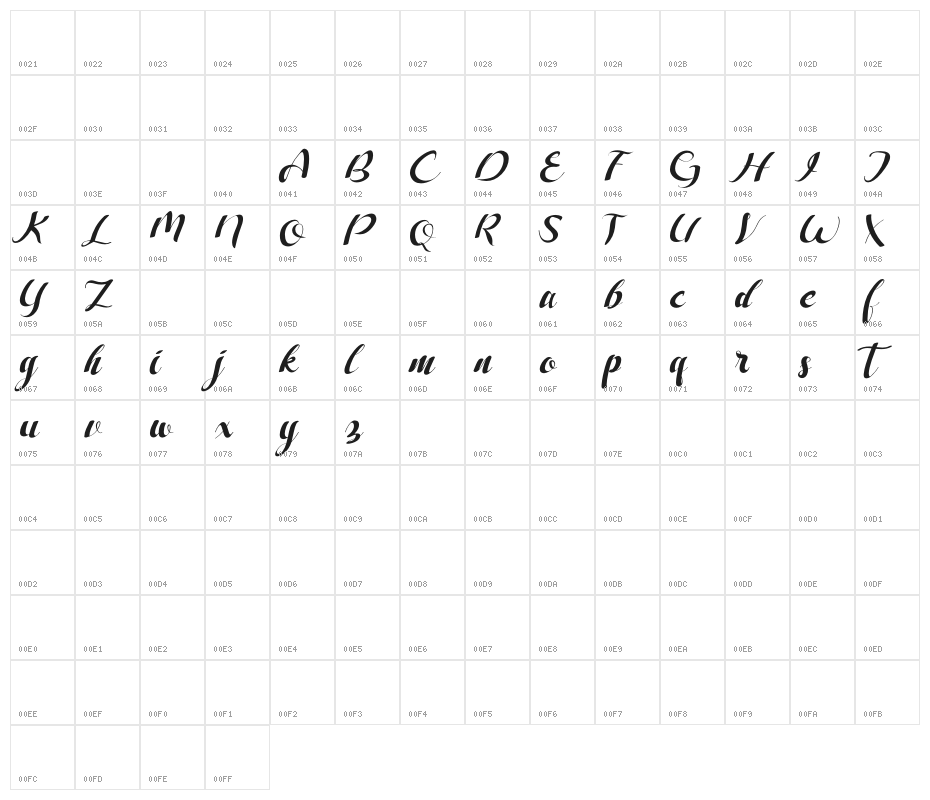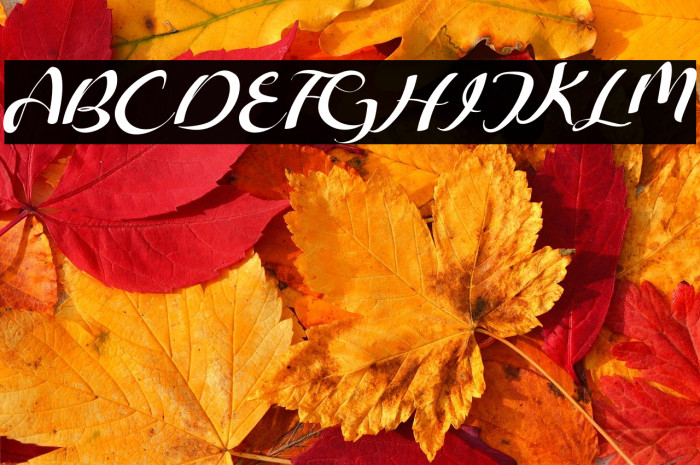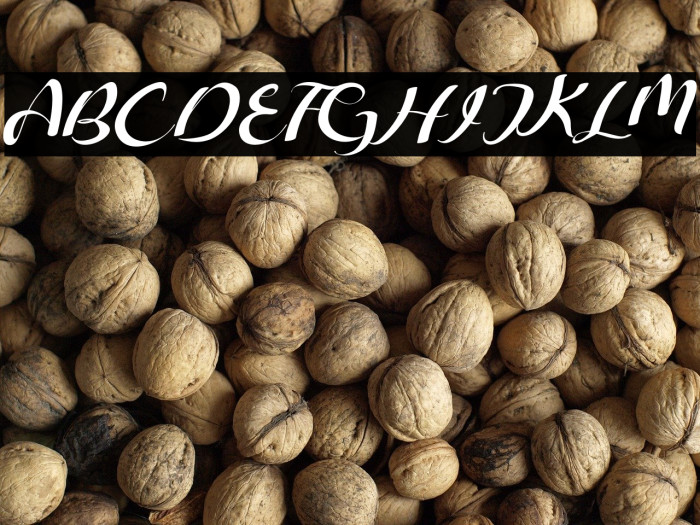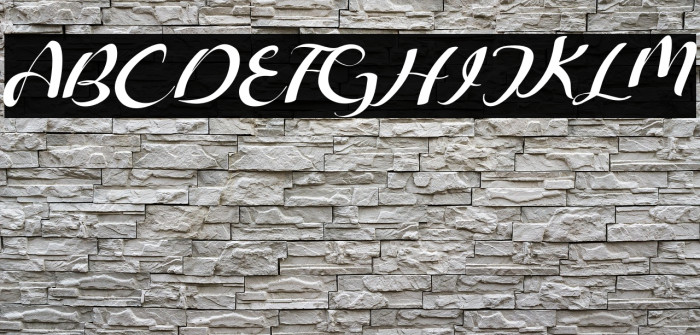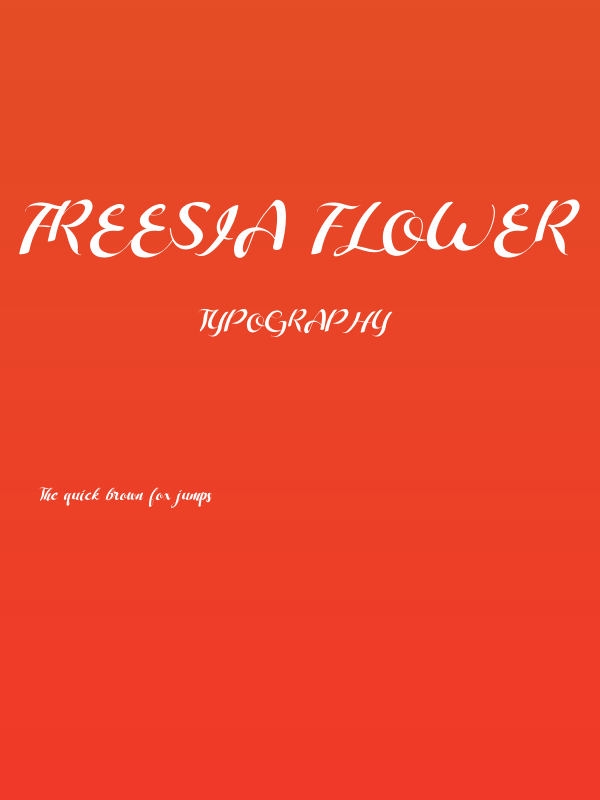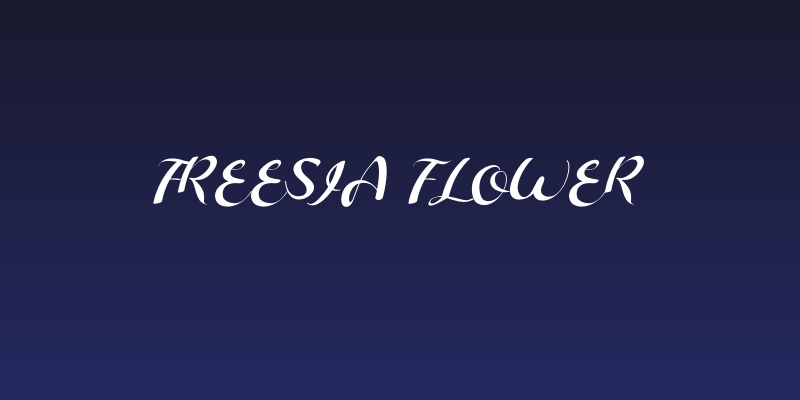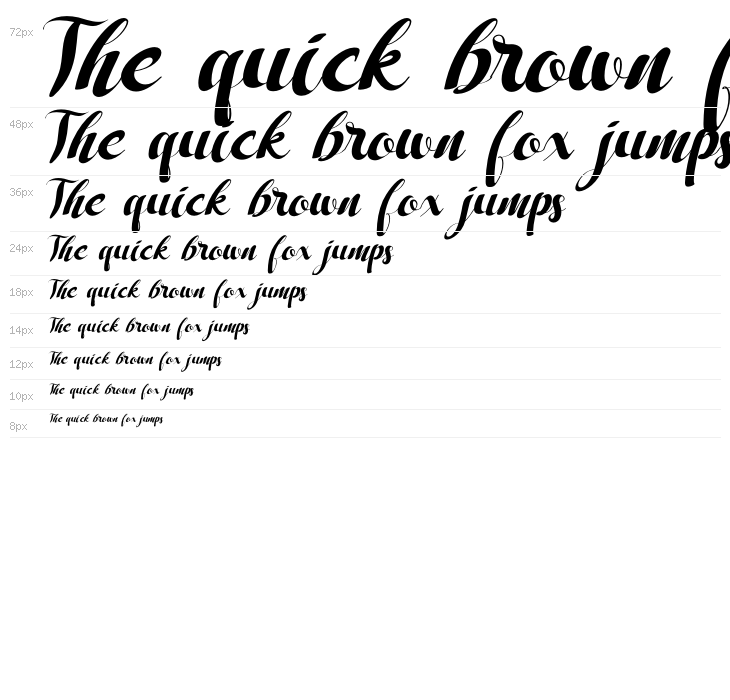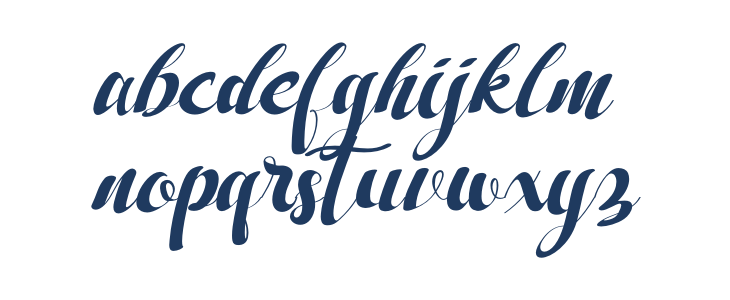
Freesia Flower Font
Freesia Flower Description
This elegant script font features a flowing, cursive style with intricate loops and swashes. The uppercase letters are bold and expressive, while the lowercase letters maintain a consistent fluidity, making them perfect for creating a sophisticated and artistic impression. The font's design is characterized by its high contrast between thick and thin strokes, adding a dynamic and lively feel. The overall appearance is both graceful and stylish, suitable for a variety of creative applications.
| Overall Style | Elegant, Artistic |
| Proposed Projects | Ideal for wedding invitations, greeting cards, branding, and elegant logo designs. |